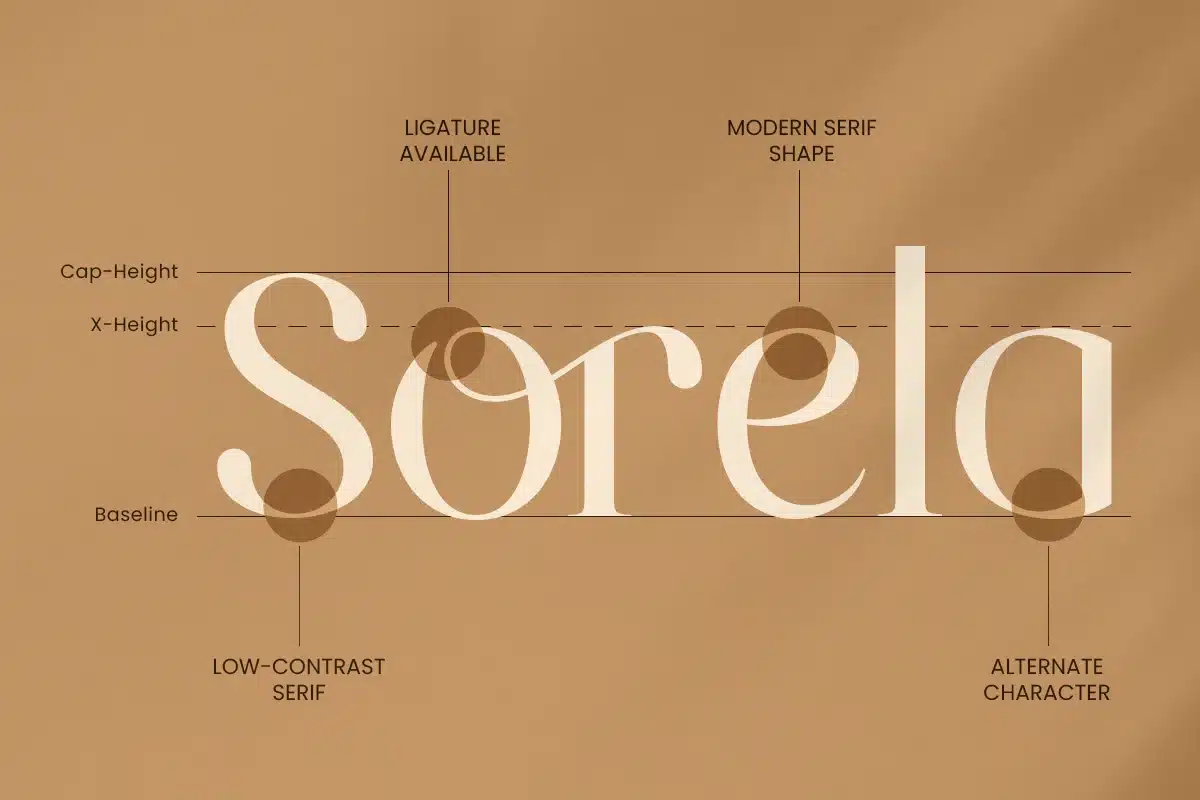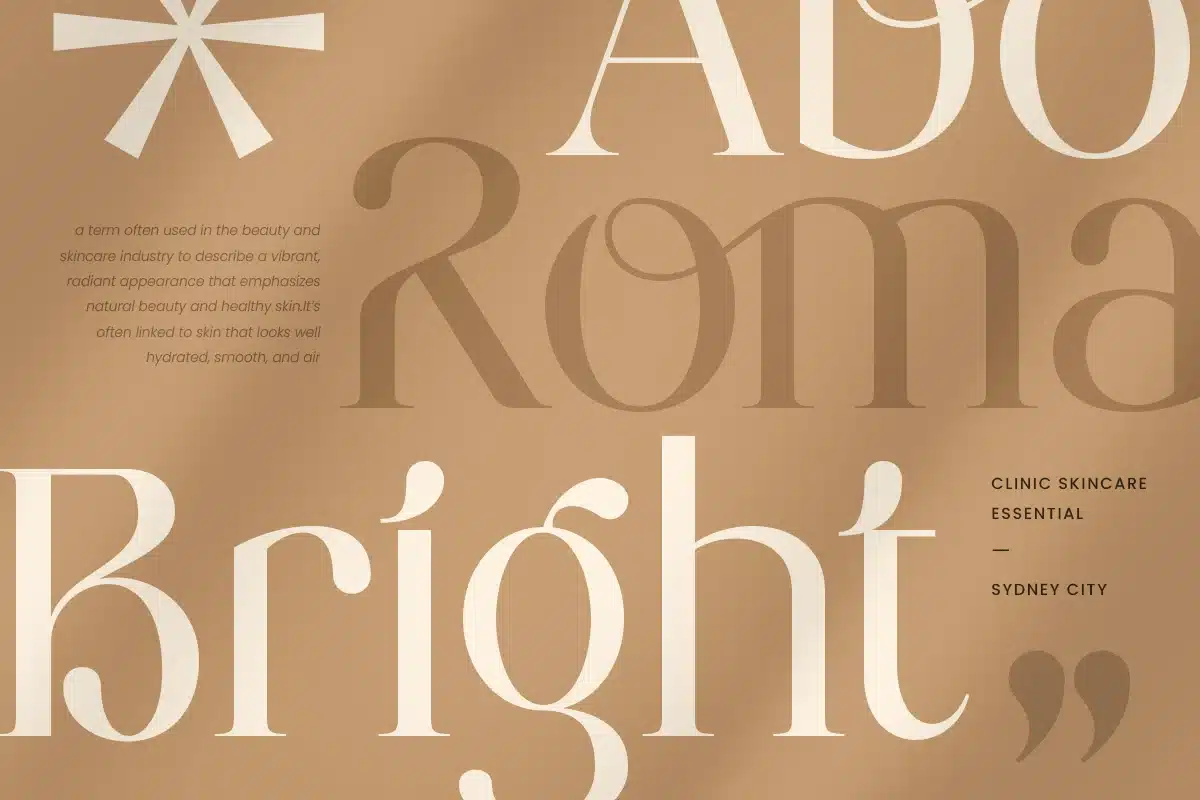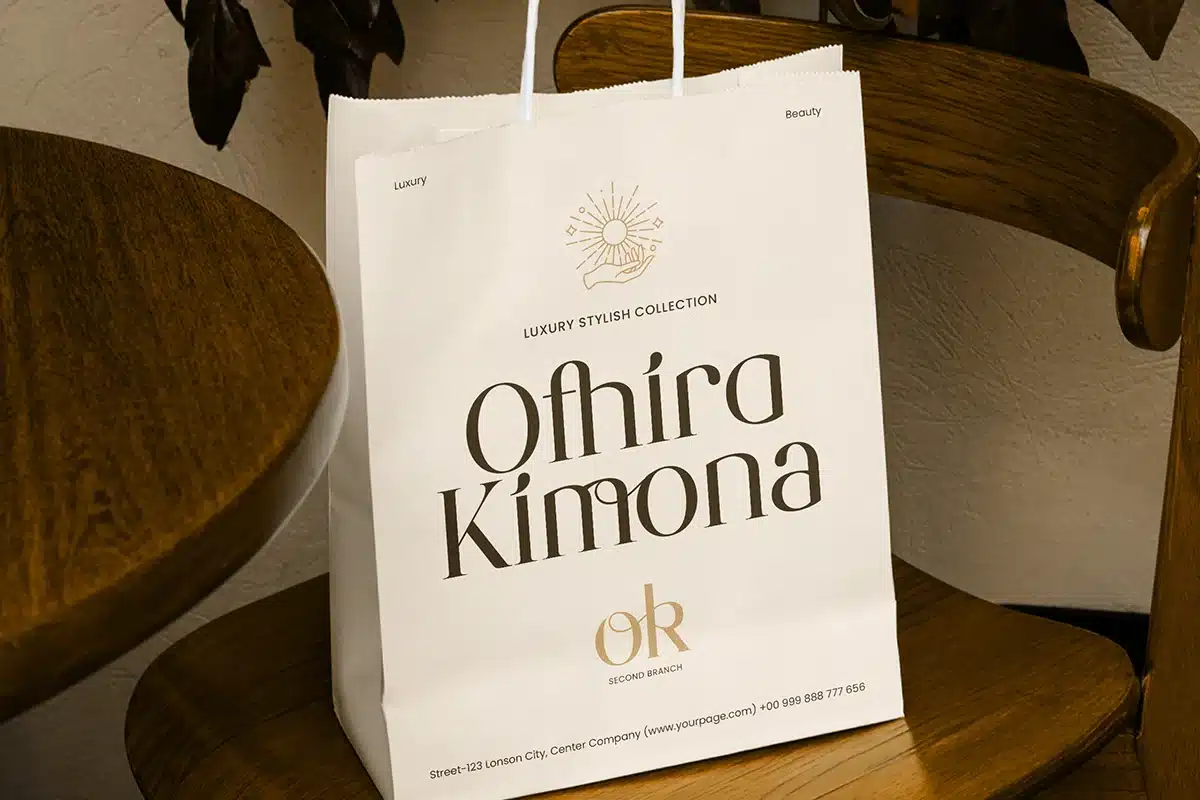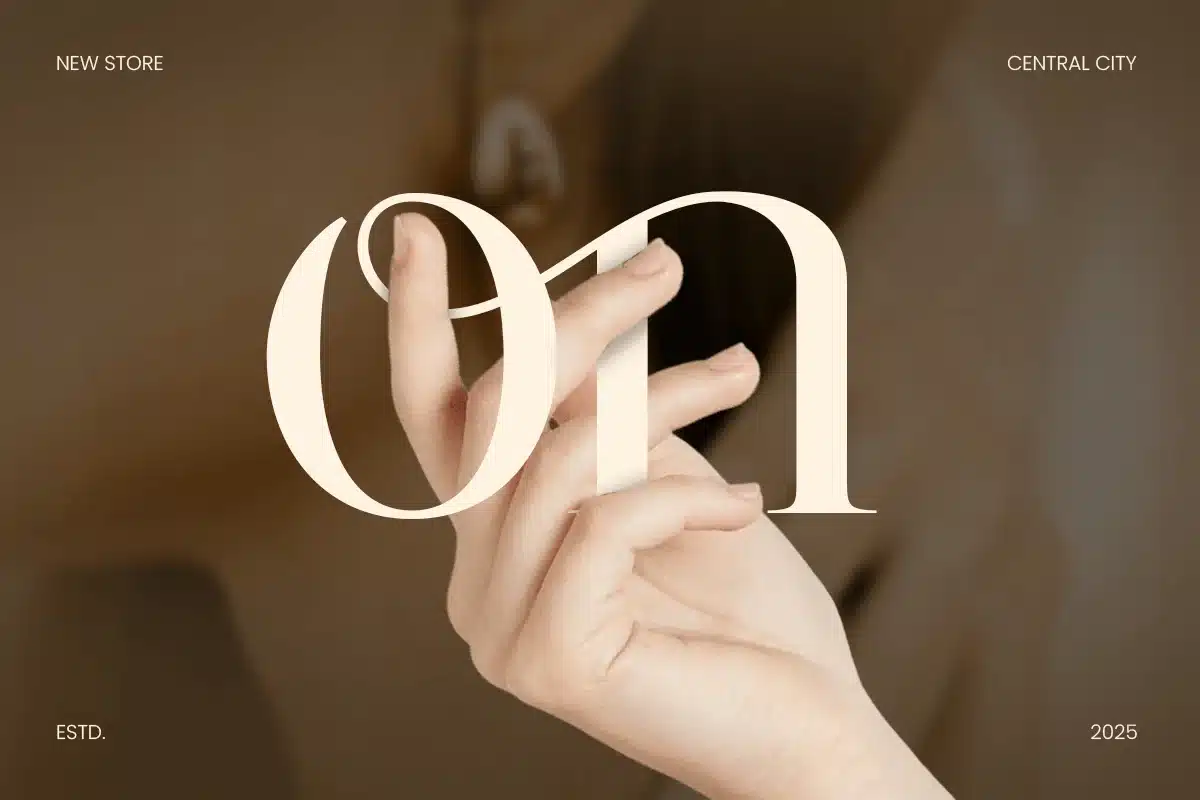
Bonita – Elegant Serif Logo Font
Bonita is an elegant serif logo font designed to deliver refined sophistication with a clean, modern edge. With graceful serif details, balanced proportions, and a polished rhythm, this typeface creates a premium visual tone that feels timeless, confident, and instantly brand-ready.
Built for branding-first typography, Bonita works beautifully across logos, wordmarks, identity systems, website headers, editorials, packaging, labels, invitations, signage, presentations, and modern marketing visuals. Its elegant structure keeps layouts crisp and readable while adding a luxurious, elevated mood across both digital and print projects.
Whether you’re crafting a fashion identity, building a beauty brand, designing premium packaging, or creating an upscale editorial concept, Bonita provides a modern serif foundation that makes your typography feel sophisticated, professional, and unforgettable.
Inspiration Behind Bonita
Bonita is inspired by contemporary luxury branding and modern editorial typography—where clarity, refinement, and elegant structure shape premium communication. The design focuses on smooth proportions and confident serif presence to support high-end logos and stylish visual systems with timeless appeal.
Bonita Font Features:
- Elegant serif letterforms optimized for logo and wordmark design
- Refined structure with premium, high-end visual rhythm
- Strong readability for headlines, brand statements, and layouts
- OpenType features for polished professional typesetting
- Logos, wordmarks, and premium brand identity systems
- Fashion, beauty, skincare, fragrance, and boutique branding
- Editorial layouts, magazine covers, lookbooks, and headlines
- Premium packaging, labels, invitations, and elegant stationery
- Social media campaigns, websites, presentations, and marketing assets
Elevate your branding with Bonita—an elegant serif logo font made for timeless premium identity design. ✨